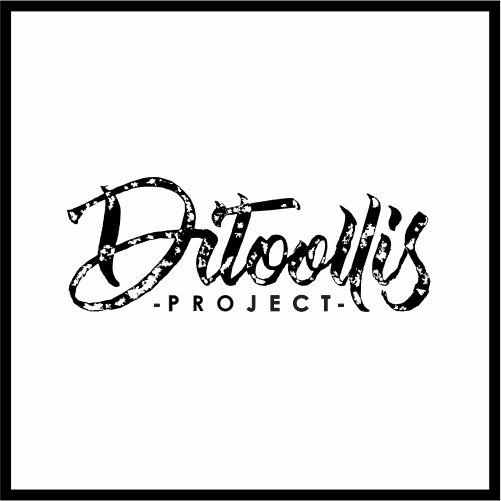
The Arivale Font Description
The Arivale is a strong and bold display font. This fantastic font is best suited for headlines of all sizes, as well as for blocks of text that have both maximum and minimum variations. Whether it’s for web, print, moving images or anything else – The Arivale will look spectacular.